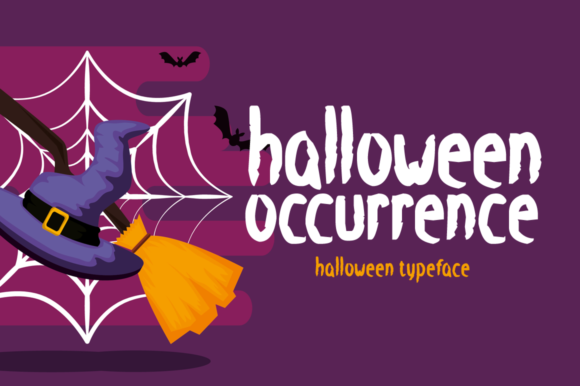
Are you ready to create Halloween projects that will make your spine tingle with excitement? Look no further than Halloween Occurrence, the ultimate display font for all your spooky needs!
With its captivating curves and wickedly sharp edges, Halloween Occurrence is a font that will cast a spell on all who behold it. It's the perfect choice for creating invitations, posters, and decorations that will make your Halloween celebration stand out from the crowd.
But Halloween Occurrence isn't just for Halloween. It's also a great choice for any project that needs a touch of the macabre, such as horror movie posters, haunted house flyers, or even just adding some spooky flair to your social media posts.
So if you're looking for a font that will make your creative projects truly unforgettable, look no further than Halloween Occurrence. It's the perfect way to add a touch of spooky sophistication to any project.